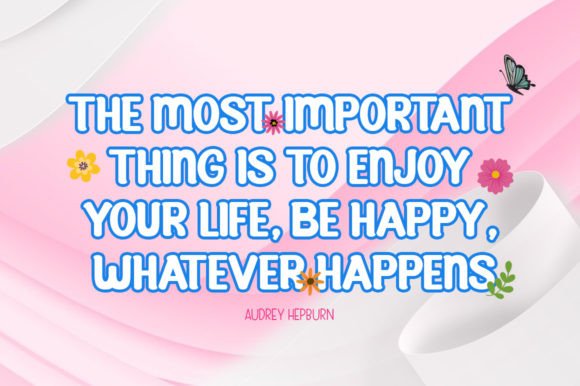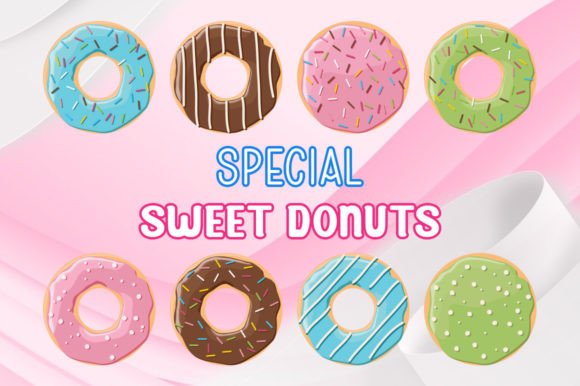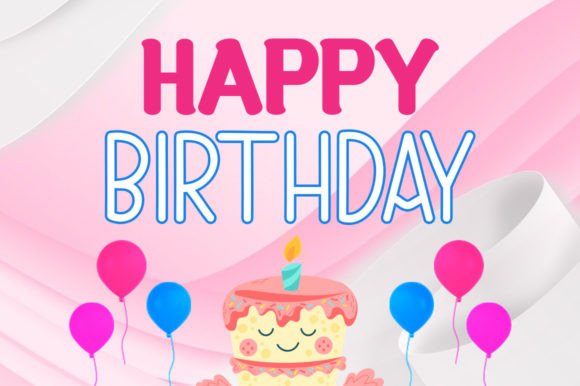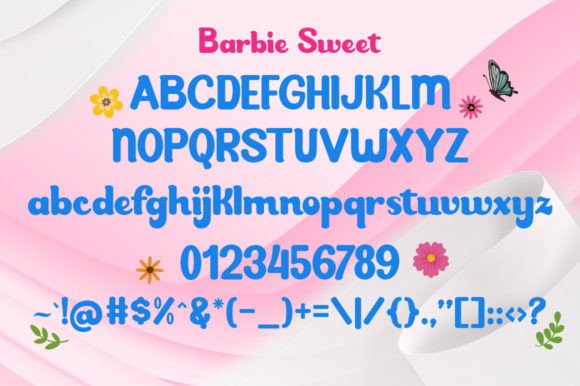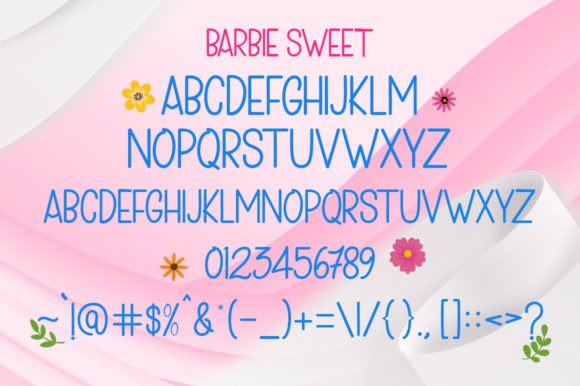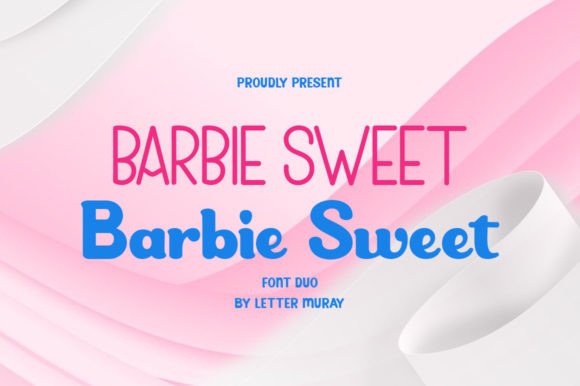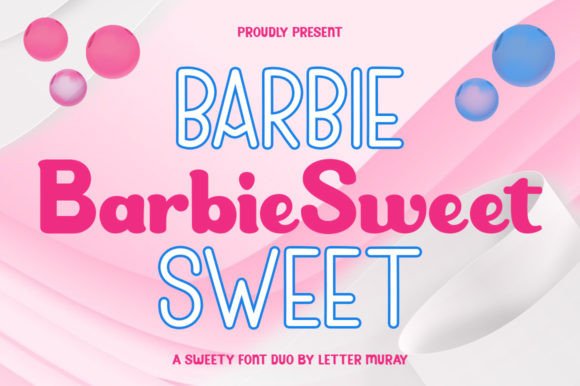
Introducing Barbie Sweet Font: The Ultimate Duo Font for Creative Projects
Are you tired of using the same old fonts for your creative projects? Look no further! Barbie Sweet Font is here to revolutionize the way you design with its dynamic and energetic typography. This duo font is perfect for adding a fun and playful touch to headlines, posters, and other creative projects.
What Makes Barbie Sweet Font So Special?
Barbie Sweet is a duo font that exudes positivity and optimism. Its bold and energetic typography is designed to grab attention and spread joy. The font’s unique design makes it perfect for a wide range of creative projects, from children’s books and posters to social media graphics and branding materials.
Key Features of Barbie Sweet Font
- Duo Font: Barbie Sweet comes with two fonts in one, allowing you to experiment with different styles and combinations.
- Dynamic Look: The font’s dynamic look is perfect for adding a playful touch to your designs.
- Bold and Energetic Typography: The font’s bold and energetic typography is designed to grab attention and spread joy.
- Perfect for Headlines and Posters: Barbie Sweet is perfect for adding a fun and playful touch to headlines, posters, and other creative projects.
Why Choose Barbie Sweet Font?
There are many reasons why Barbie Sweet font is the perfect choice for designers and crafters. Here are a few:
- Unique Design: Barbie Sweet font has a unique design that sets it apart from other fonts.
- Versatile: The font is versatile and can be used for a wide range of creative projects.
- Easy to Read: Despite its bold and energetic design, Barbie Sweet font is easy to read, making it perfect for headlines and posters.
- Fun and Playful: The font’s fun and playful design makes it perfect for adding a touch of personality to your designs.
How to Use Barbie Sweet Font in Your Designs
Using Barbie Sweet font in your designs is easy. Here are a few tips:
- Pair it with Other Fonts: Experiment with pairing Barbie Sweet font with other fonts to create a unique look.
- Use it for Headlines: Barbie Sweet font is perfect for headlines and titles.
- Add a Pop of Color: Use Barbie Sweet font to add a pop of color to your designs.
- Experiment with Different Sizes: Experiment with different sizes to see how Barbie Sweet font looks in different contexts.
Who Can Benefit from Barbie Sweet Font?
Barbie Sweet font is perfect for a wide range of designers and crafters, including:
- Graphic Designers: Barbie Sweet font is perfect for graphic designers who want to add a fun and playful touch to their designs.
- Social Media Managers: The font is perfect for social media managers who want to create engaging and eye-catching graphics.
- Crafters: Barbie Sweet font is perfect for crafters who want to add a personal touch to their projects.
- Children’s Book Illustrators: The font is perfect for children’s book illustrators who want to create fun and engaging stories.
| Font Name | Barbie Sweet Font |
| Author | Letter Muray |
In conclusion, Barbie Sweet font is a unique and versatile duo font that is perfect for adding a fun and playful touch to creative projects. Its bold and energetic typography makes it perfect for headlines, posters, and other designs where you want to grab attention and spread joy. Whether you’re a graphic designer, social media manager, crafter, or children’s book illustrator, Barbie Sweet font is the perfect choice for your next project.